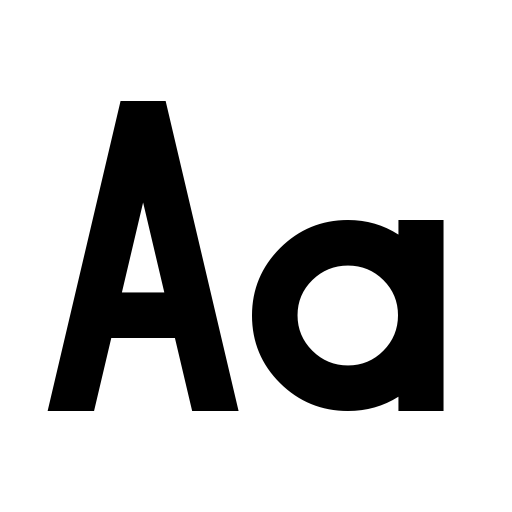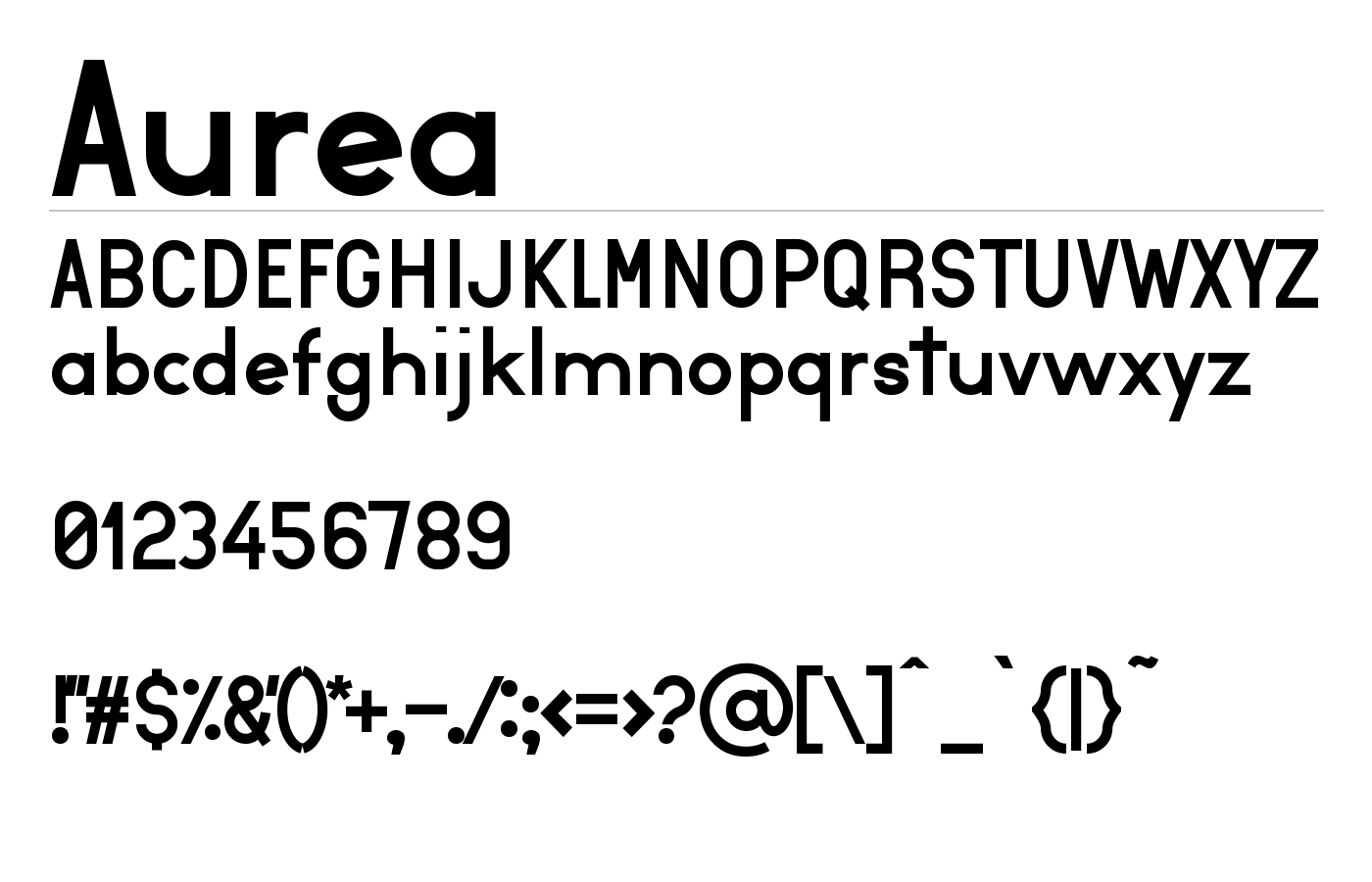
Aurea is a modern sans serif font characterized by its clean, geometric shapes and a slightly condensed width that gives it a strong, contemporary presence. With a medium weight and uniform stroke contrast, it offers excellent readability and a versatile look that works well for headlines, branding, and editorial design. Its balanced letterforms convey professionalism and clarity, making it ideal for projects seeking a sleek, modern aesthetic.
Aurea Font